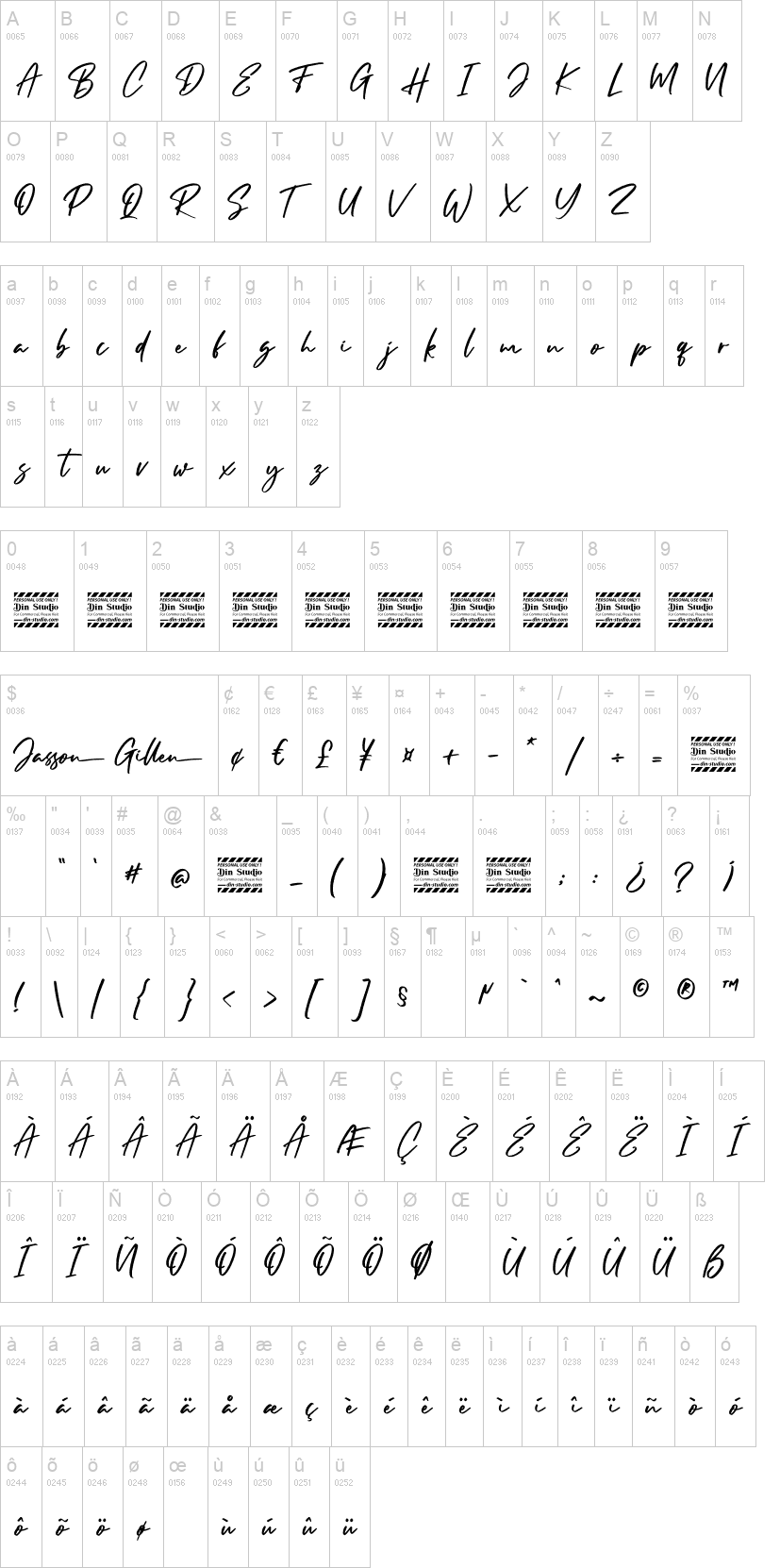
Made with naturally handwritten, it will make your design project more beautiful. This font is suitable for
any design like branding, quotes, t-shirt printing and etc.